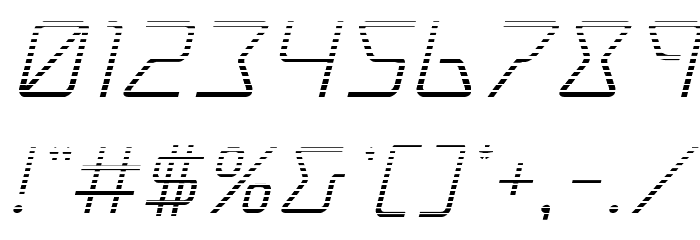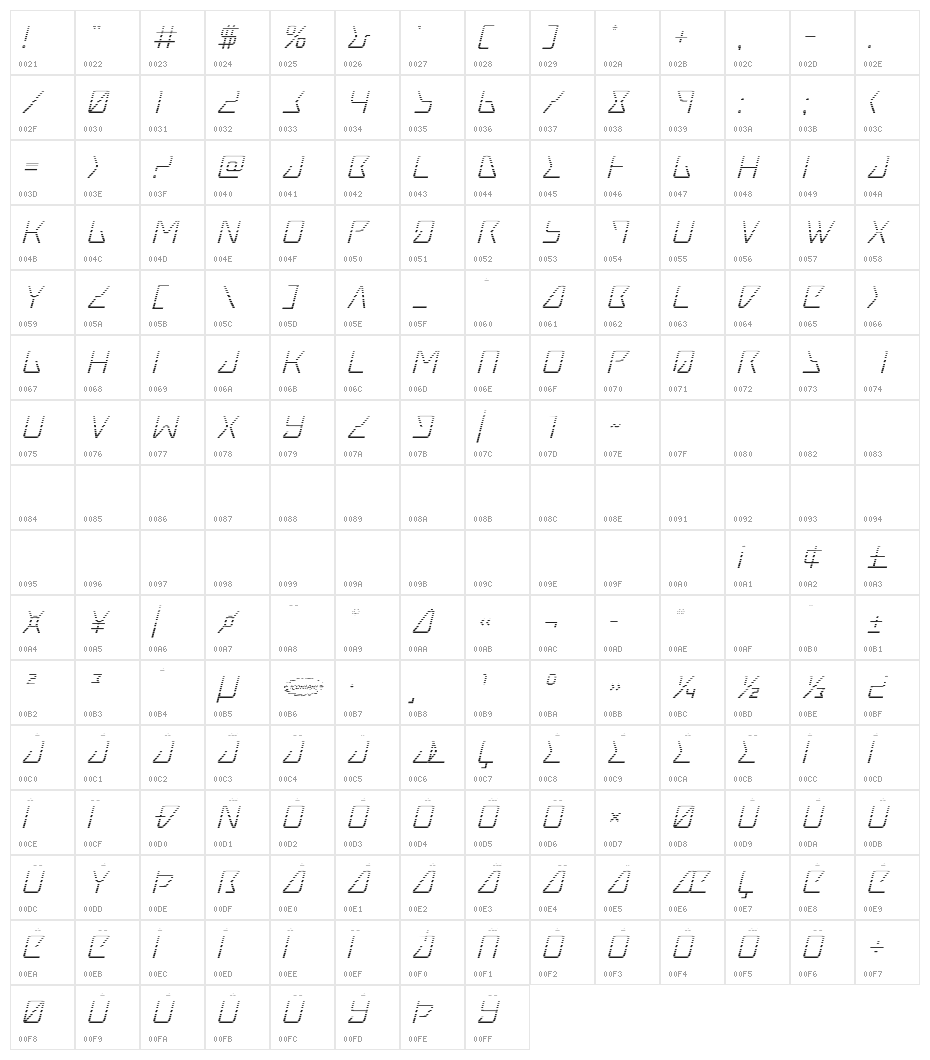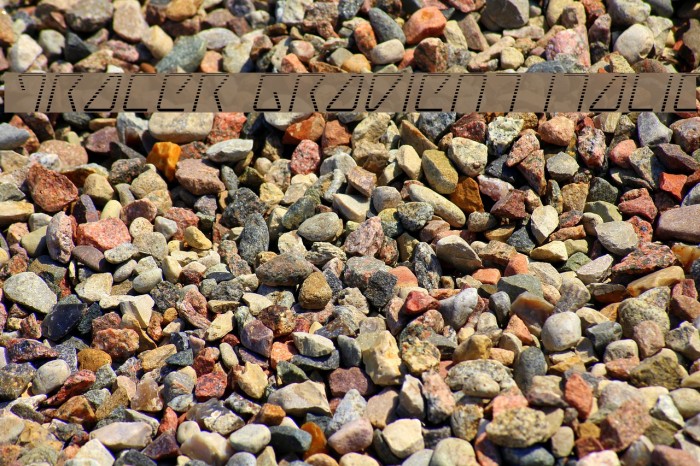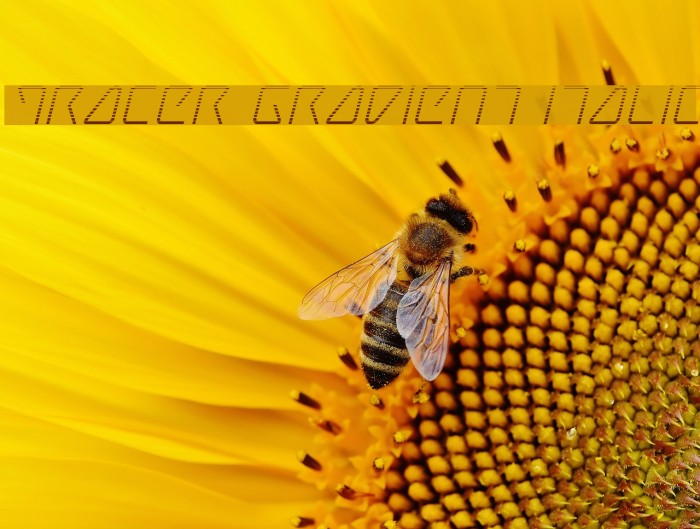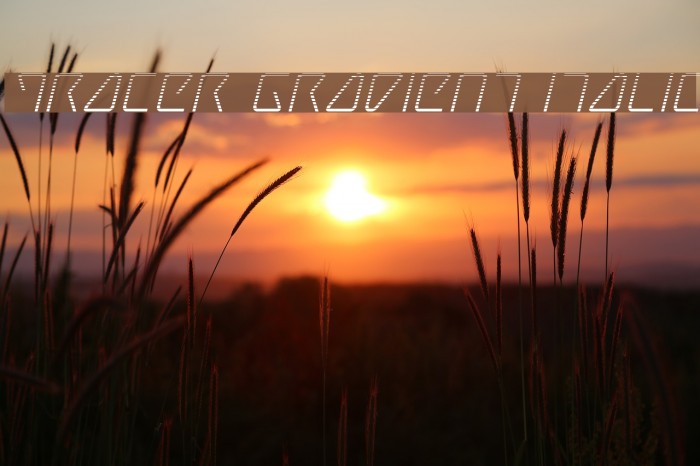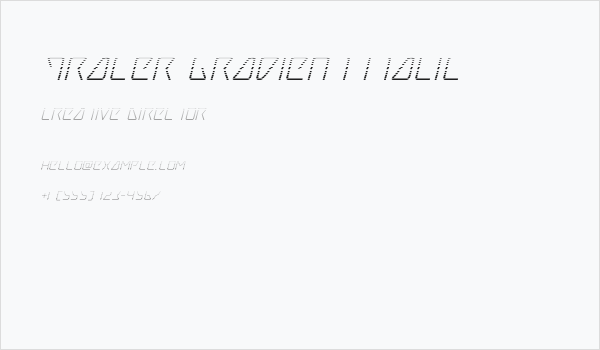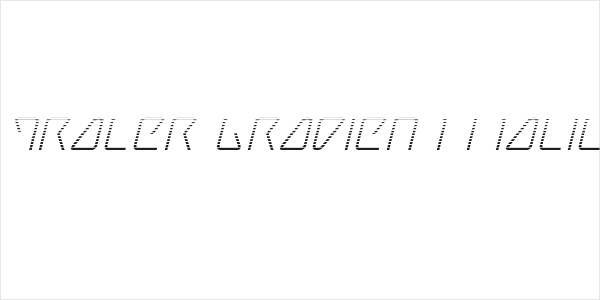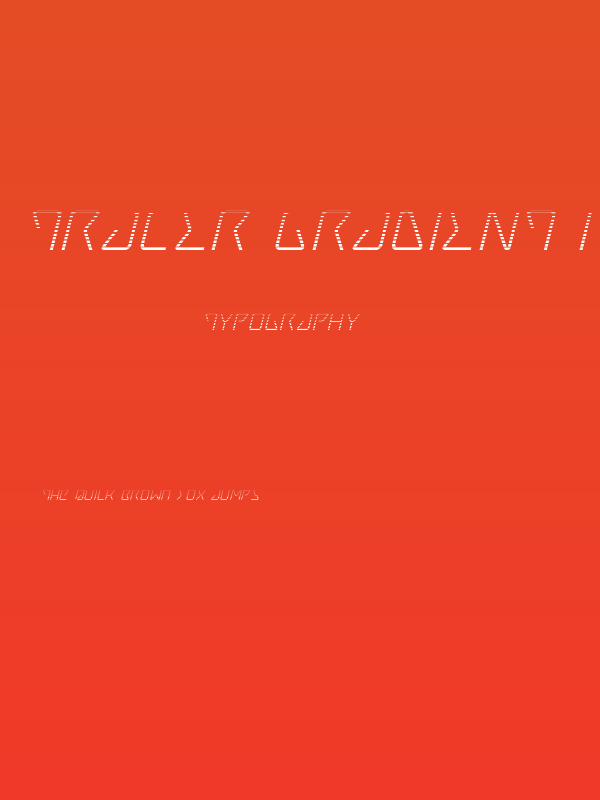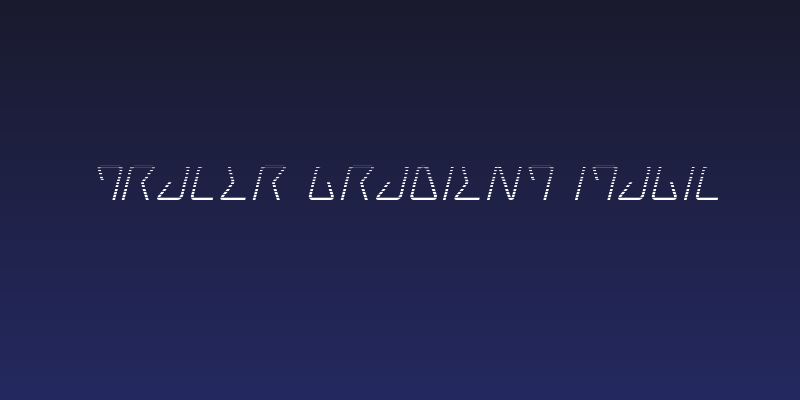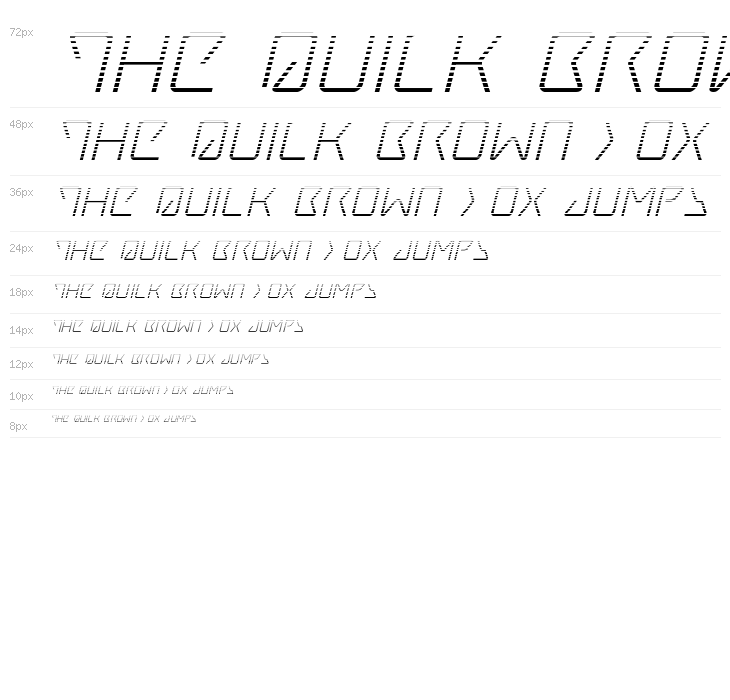
Tracer Gradient Italic Font
Tracer Gradient Italic Description
This font features a futuristic and dynamic design with a distinct italic slant, giving it a sense of motion and speed. The characters are composed of segmented lines, creating a gradient-like effect that adds depth and visual interest. The uppercase and lowercase letters maintain a consistent style, with sharp angles and clean lines. Numbers and special characters follow the same design principles, ensuring uniformity across all elements. The overall appearance is modern and tech-inspired, making it suitable for projects that require a cutting-edge aesthetic.
| Proposed Projects | Ideal for sci-fi themed designs, technology branding, video game interfaces, and modern advertising. |